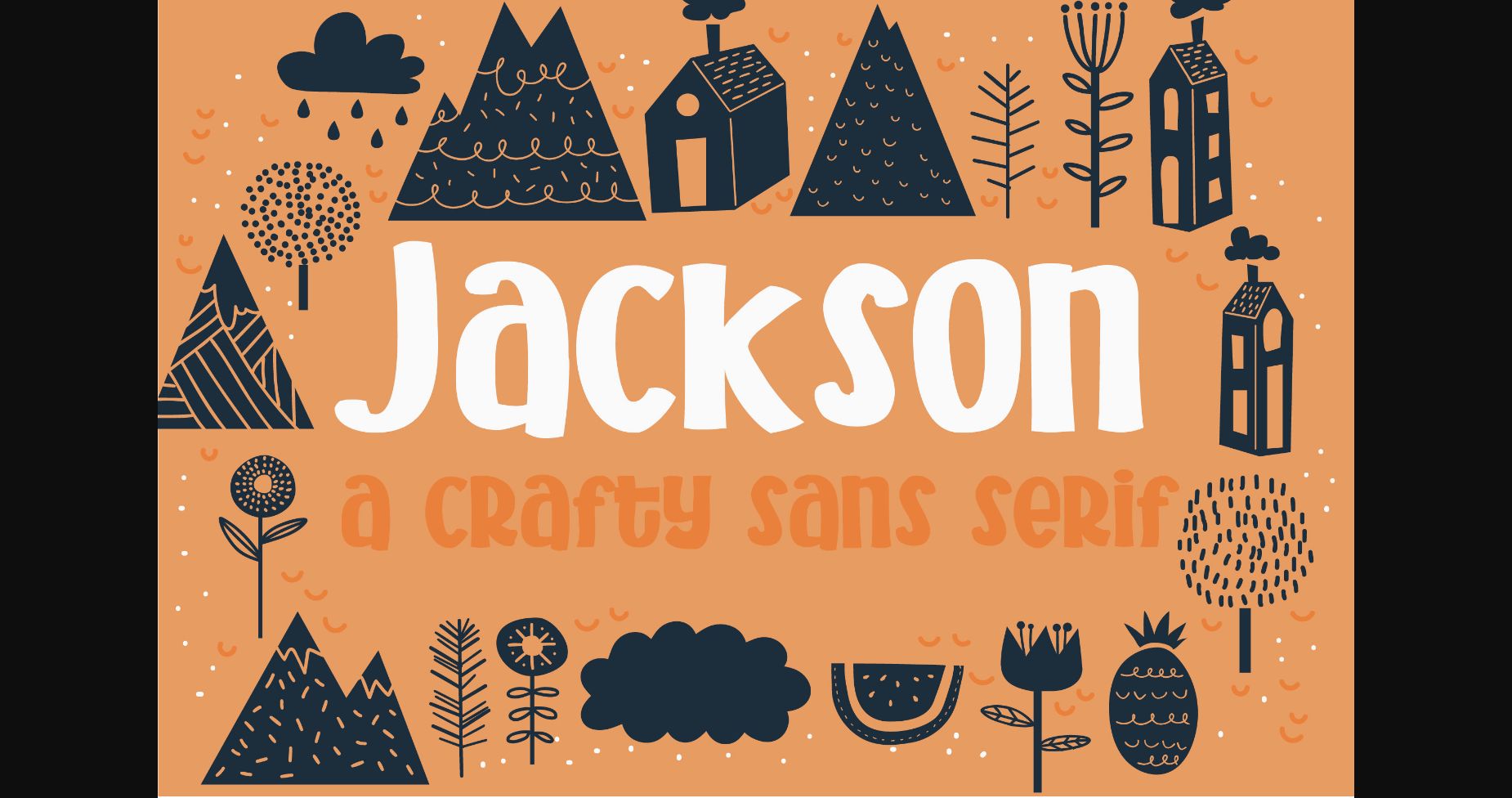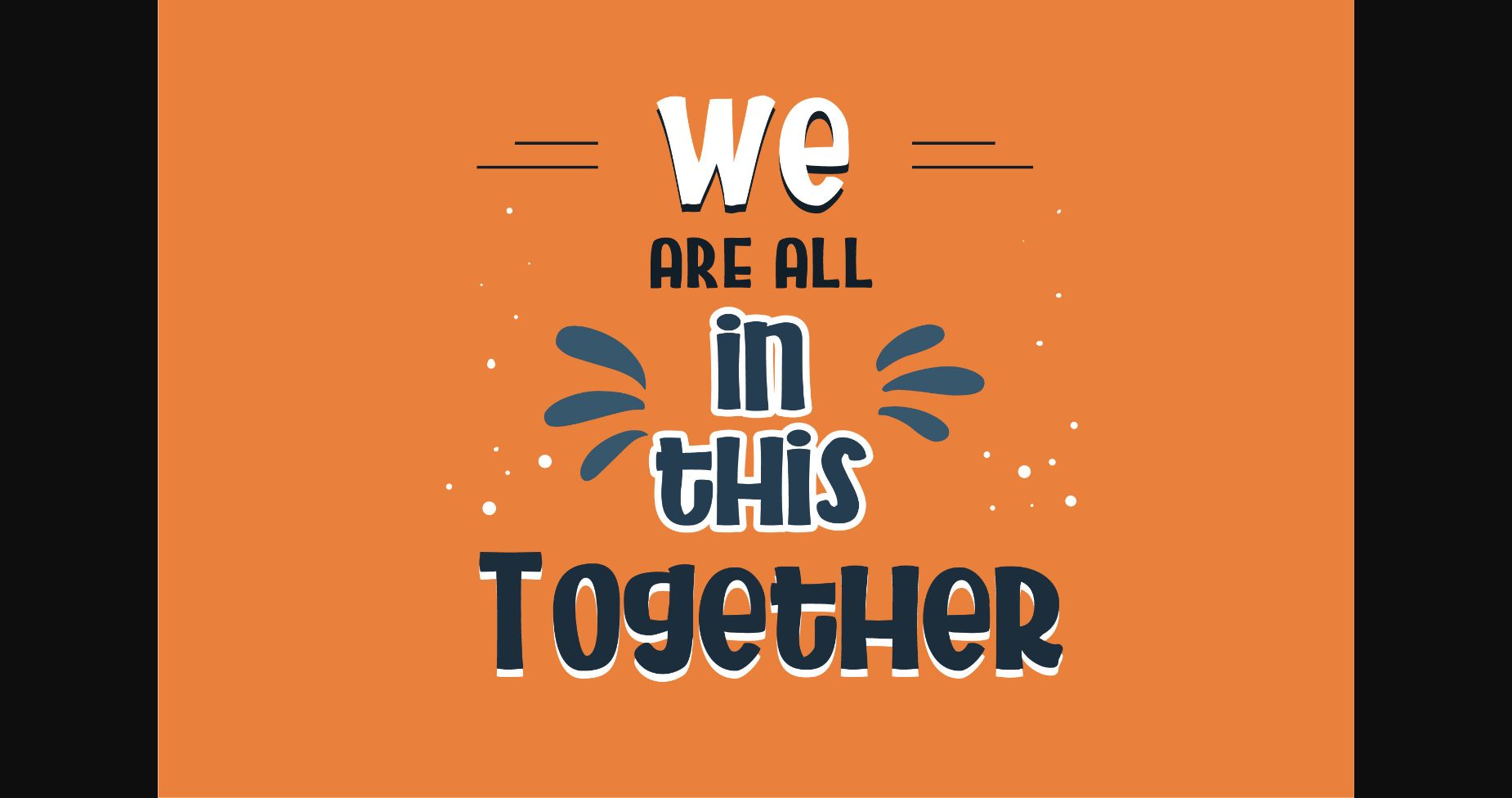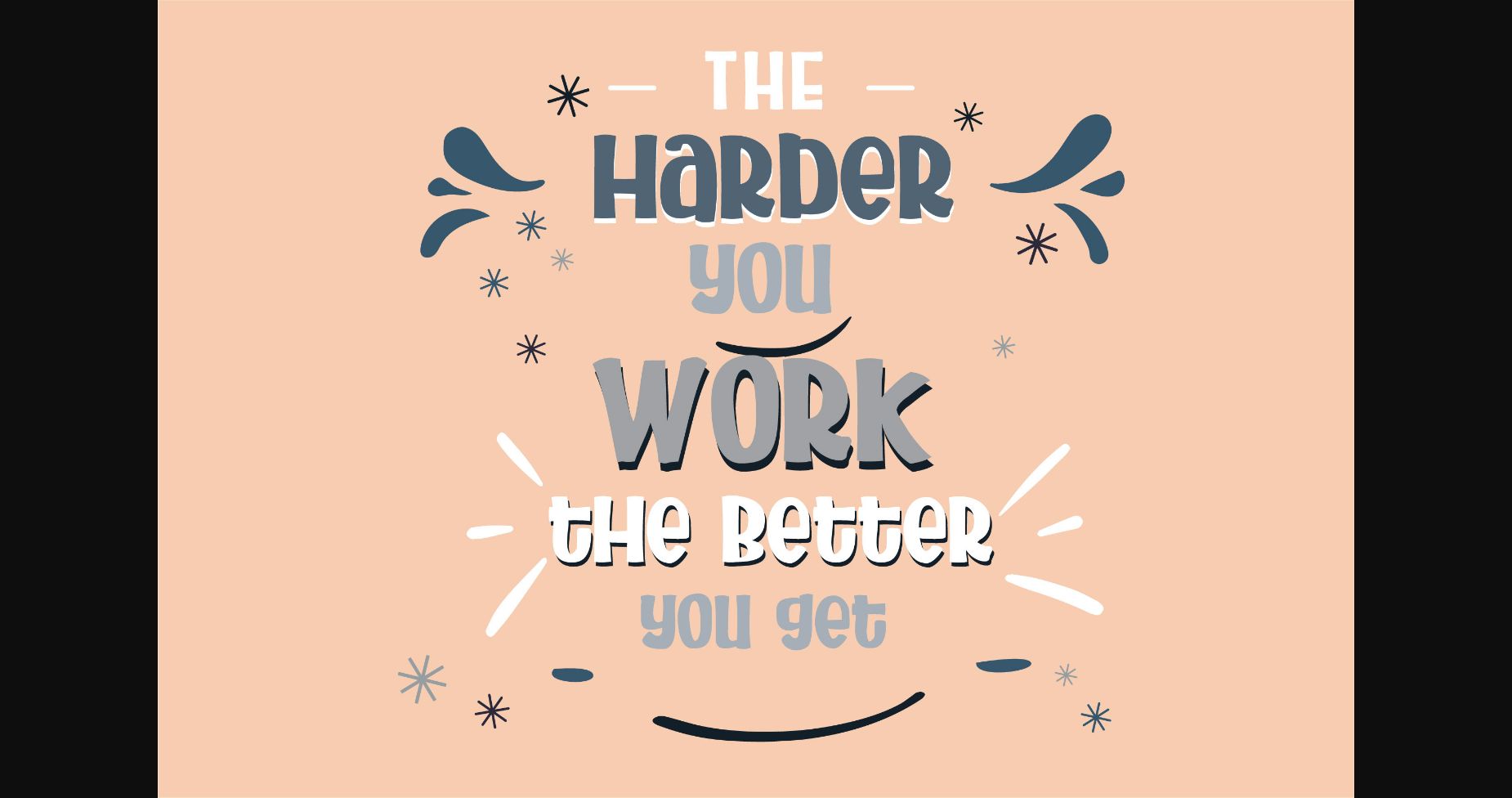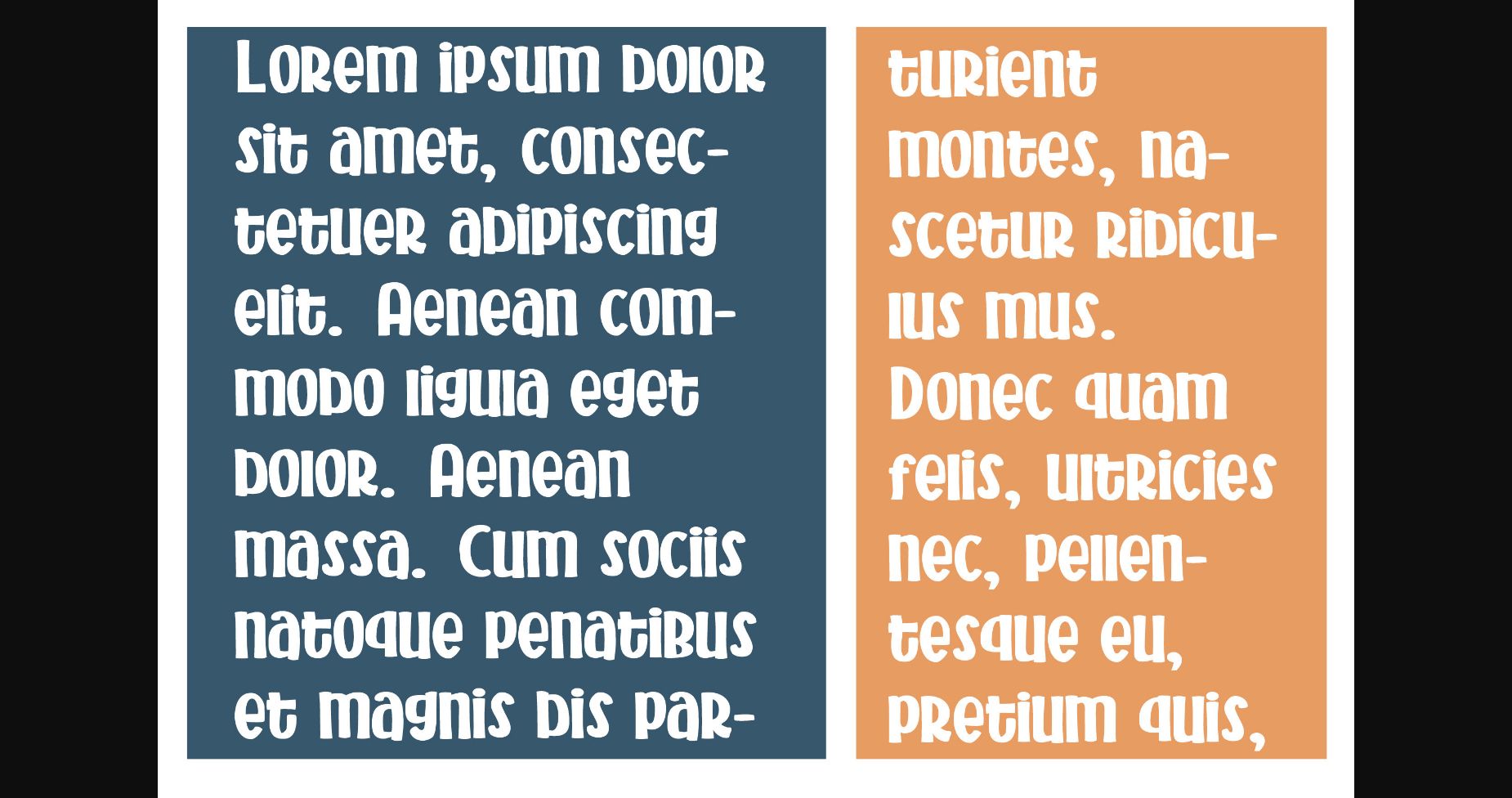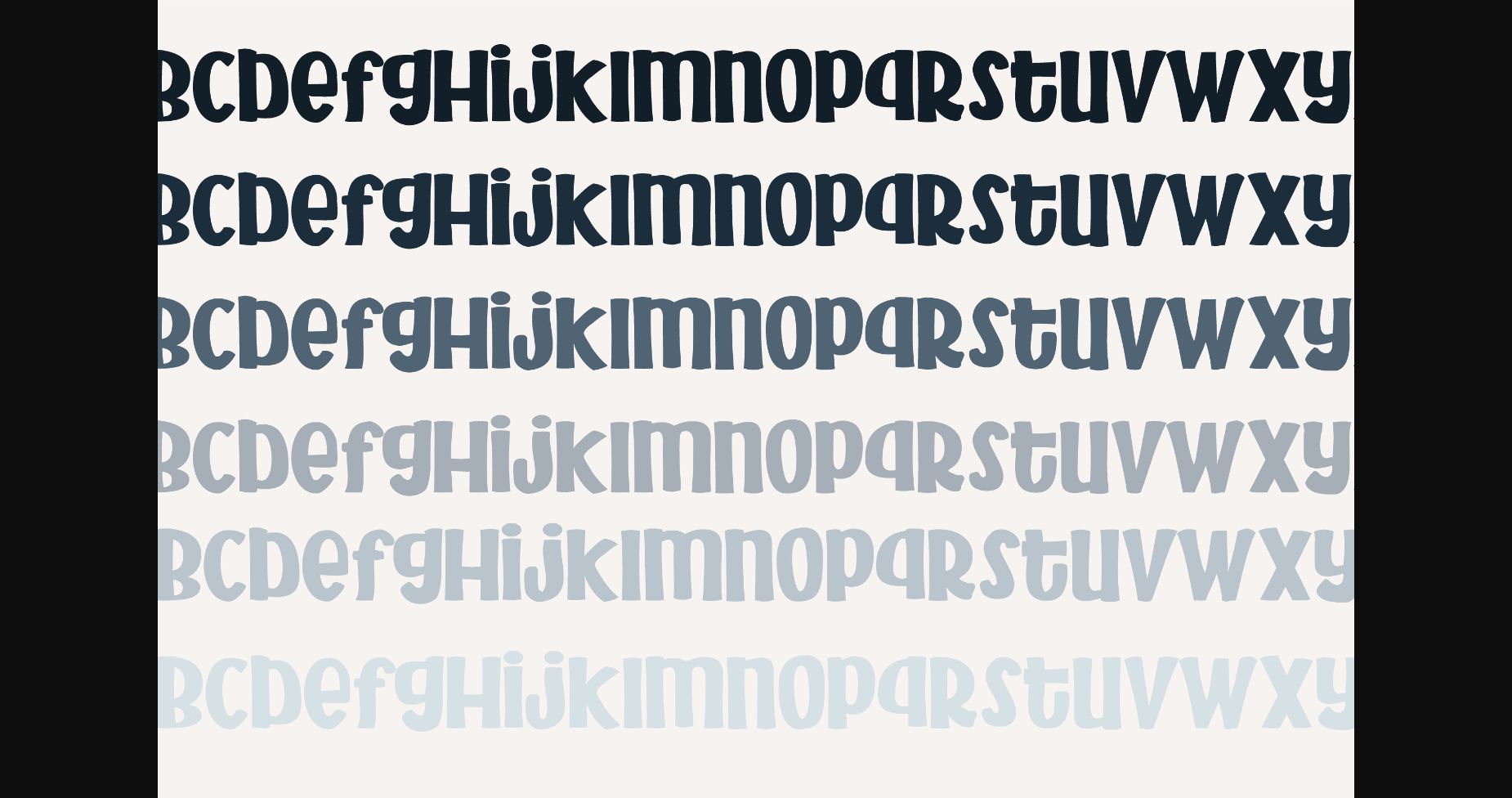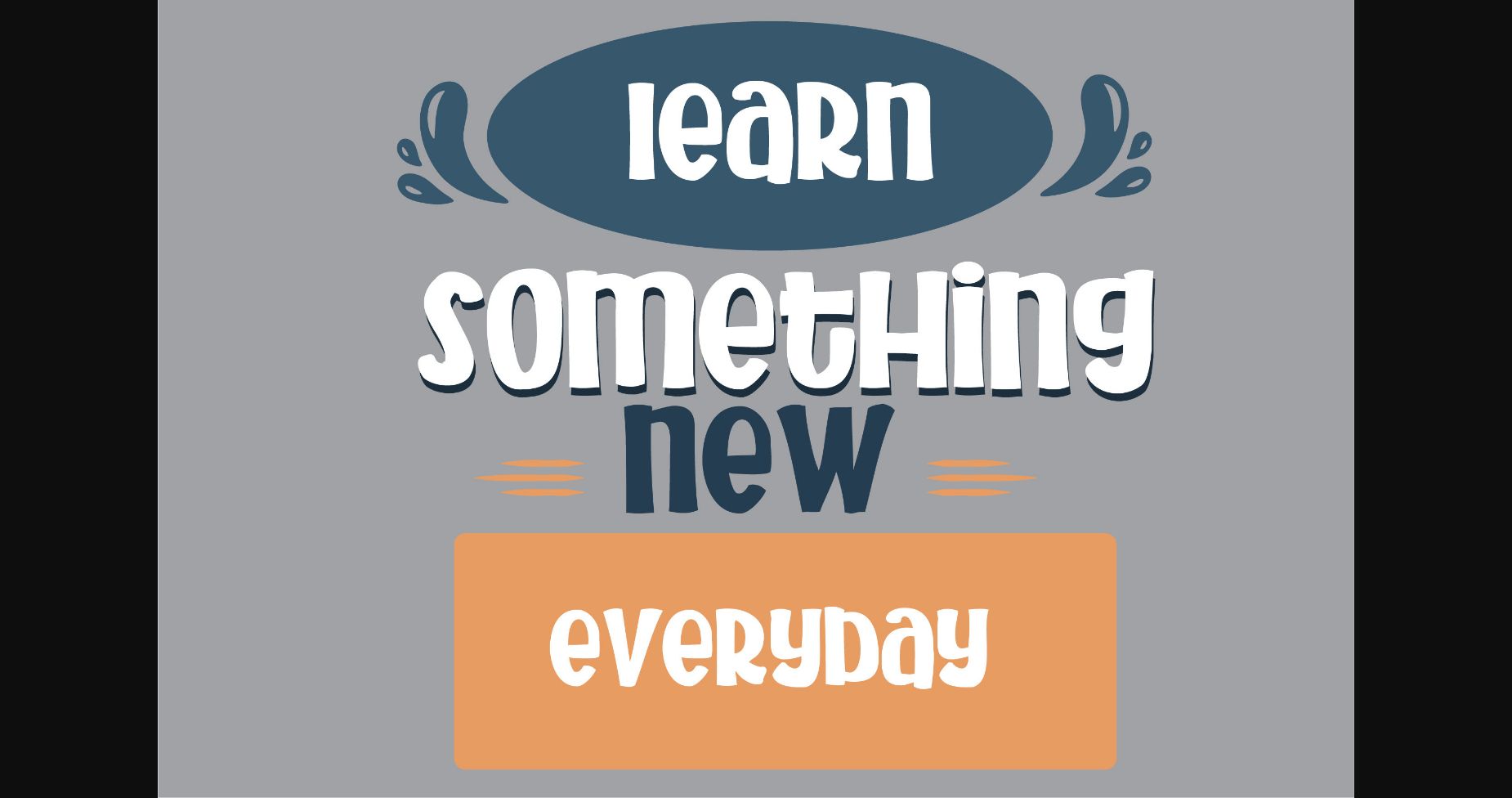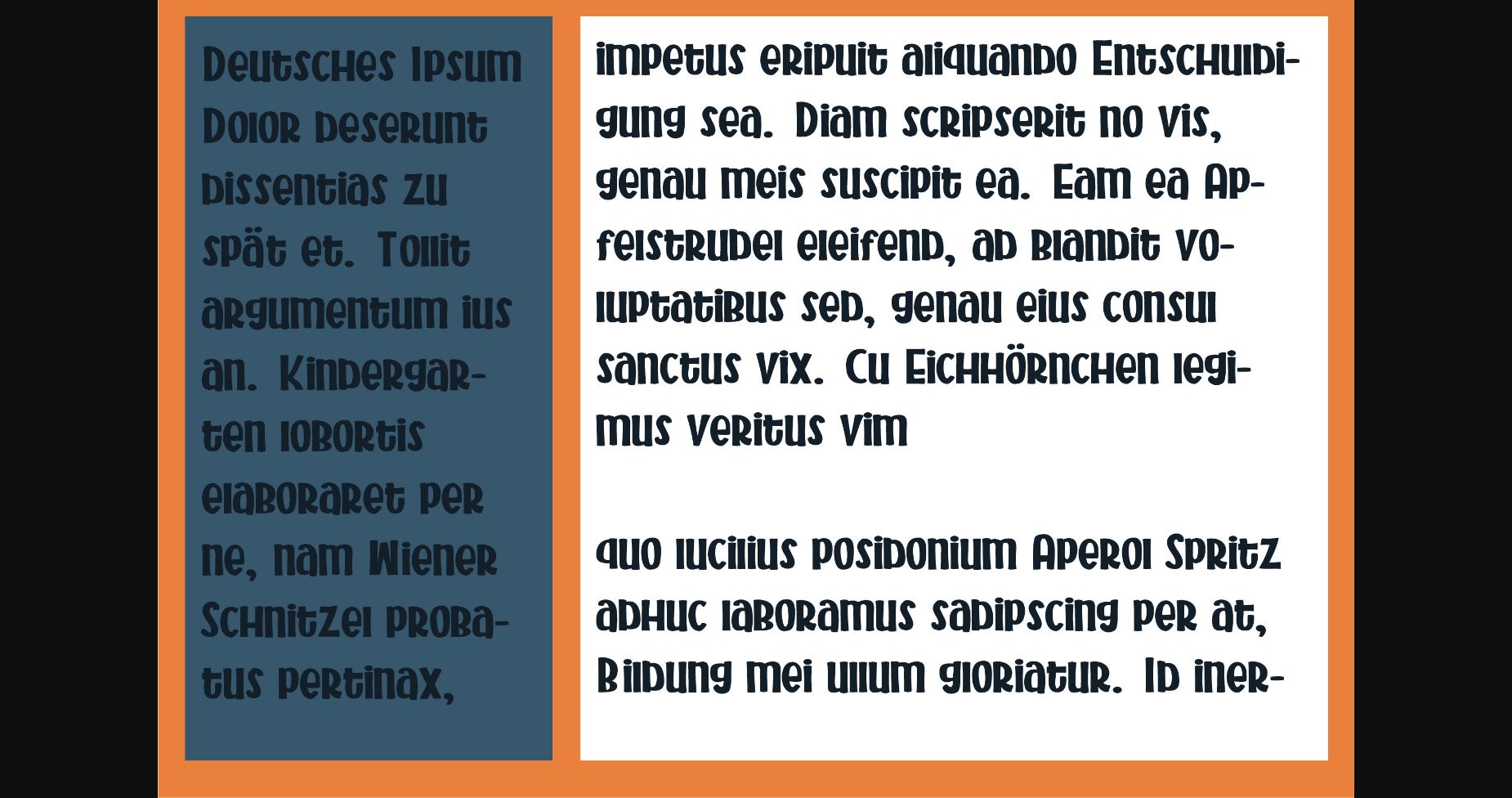
HomeSans Serif FontsJackson Font Sans Serif Fonts Jackson Font FacebookXPinterestWhatsApp 1 of 9 ... Jackson Font Poster 2... Jackson Font Poster 3... Jackson Font Poster 4... Jackson Font Poster 5... Jackson Font Poster 6... Jackson Font Poster 7... Jackson Font Poster 8... Jackson Font Poster 9... About Jackson Font This blocky font is a heavy sans serif that also comes with a 3d style. It’s perfect for products that need a modern and inviting look! DOWNLOAD NOW People also explored Sequize Font Hanny Moon Font Bams Glitch V2 Font Collazio Serif Font Arighton Candle Font Whitelight Vintage Signature Font Naughty Gnomes Font 323 0 TagsJacksonJackson Font Previous articleLooky Tube FontNext articleGidzilla Font LEAVE A REPLY Cancel reply Comment: Please enter your comment! Name:* Please enter your name here Email:* You have entered an incorrect email address! Please enter your email address here Website: Save my name, email, and website in this browser for the next time I comment. Personal Use Free Comic Caps Personal Use Free Read more about this font Mold Papa Personal Use Free Read more about this font Reztop Personal Use Free Read more about this font Wildwest Personal Use Free Read more about this font BLOG Top 7 Google Fonts Alternatives for Faster and Privacy-Friendly Web Design (2025) Top 7 Google Fonts Alternatives for Faster and Privacy-Friendly Web Design (2025) When it comes to web typography, Google Fonts has long been the go-to... Modern Sans-Serif Fonts That Brands Love in 2025 Best Fonts for T-Shirt Design – Top 2025 Picks The 10 Best Handwriting Fonts to Add Personality to Your Designs